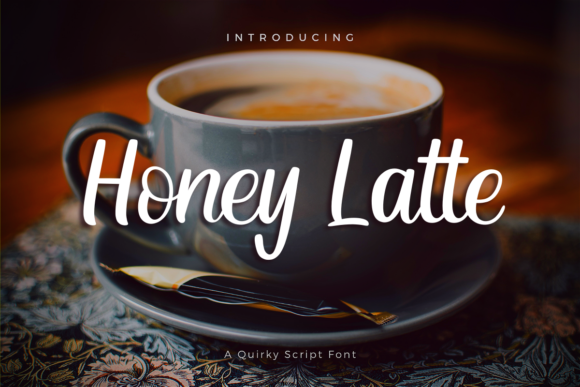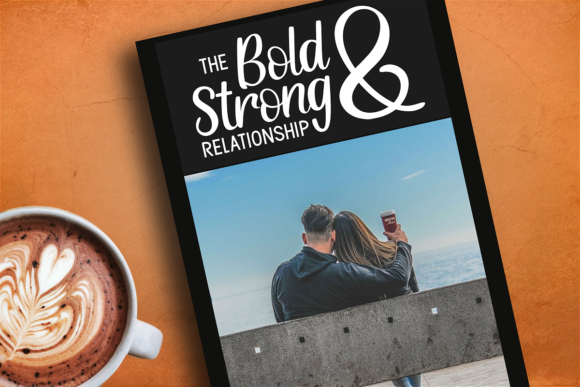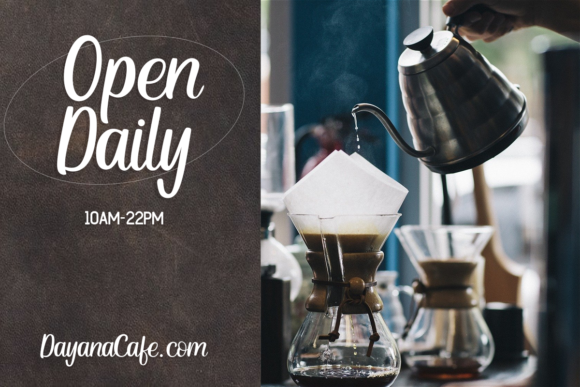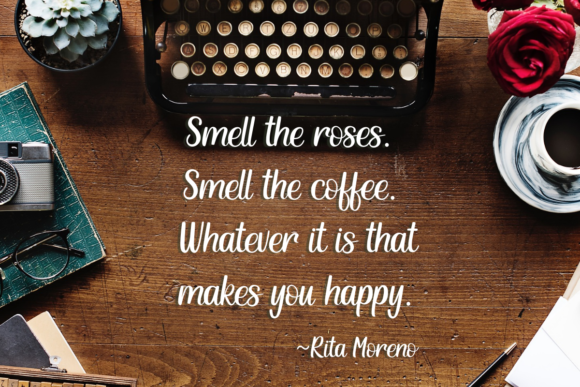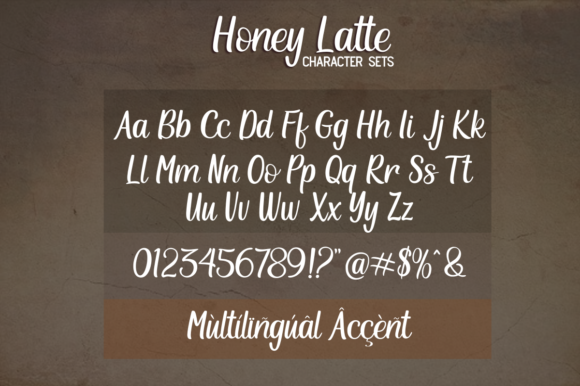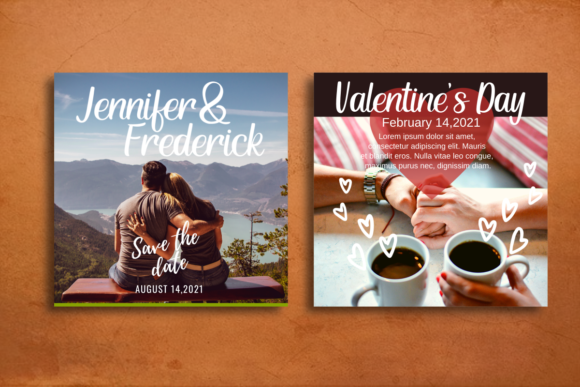
Honey Latte Font
About Honey Latte Font
Honey Latte is a distinctive and sophisticated handwritten font that adds a touch of elegance and charm to any design. With its unique and beautiful letterforms, this font is perfect for projects that require a personalized and stylish touch. Whether you’re designing wedding invitations, thank-you cards, or greeting cards, Honey Latte will elevate your designs and make them stand out.
The fluid and graceful strokes of Honey Latte create a sense of natural handwriting, giving your designs a warm and inviting feel. The font’s versatility allows it to be used in various contexts, from elegant wedding invitations to sophisticated logos and branding. Its elegant appearance makes it suitable for both formal and casual designs, adding a touch of class to any project.
Honey Latte’s elegant and unique style is sure to catch the eye and leave a lasting impression on your audience. Its versatility and beauty make it a go-to choice for designers looking to create personalized and elegant designs. Additionally, it’s a great option for branding and logo design, as it captures attention and communicates a sense of refinement and sophistication.
Whether you’re crafting designs for special events or creating a brand identity that stands out, Honey Latte is the perfect choice for adding an element of elegance and personality. Embrace the unique and elegant nature of Honey Latte, and let it infuse your designs with a touch of sophistication and style.